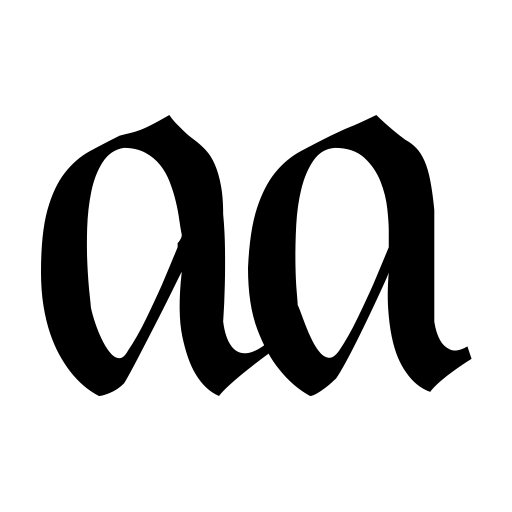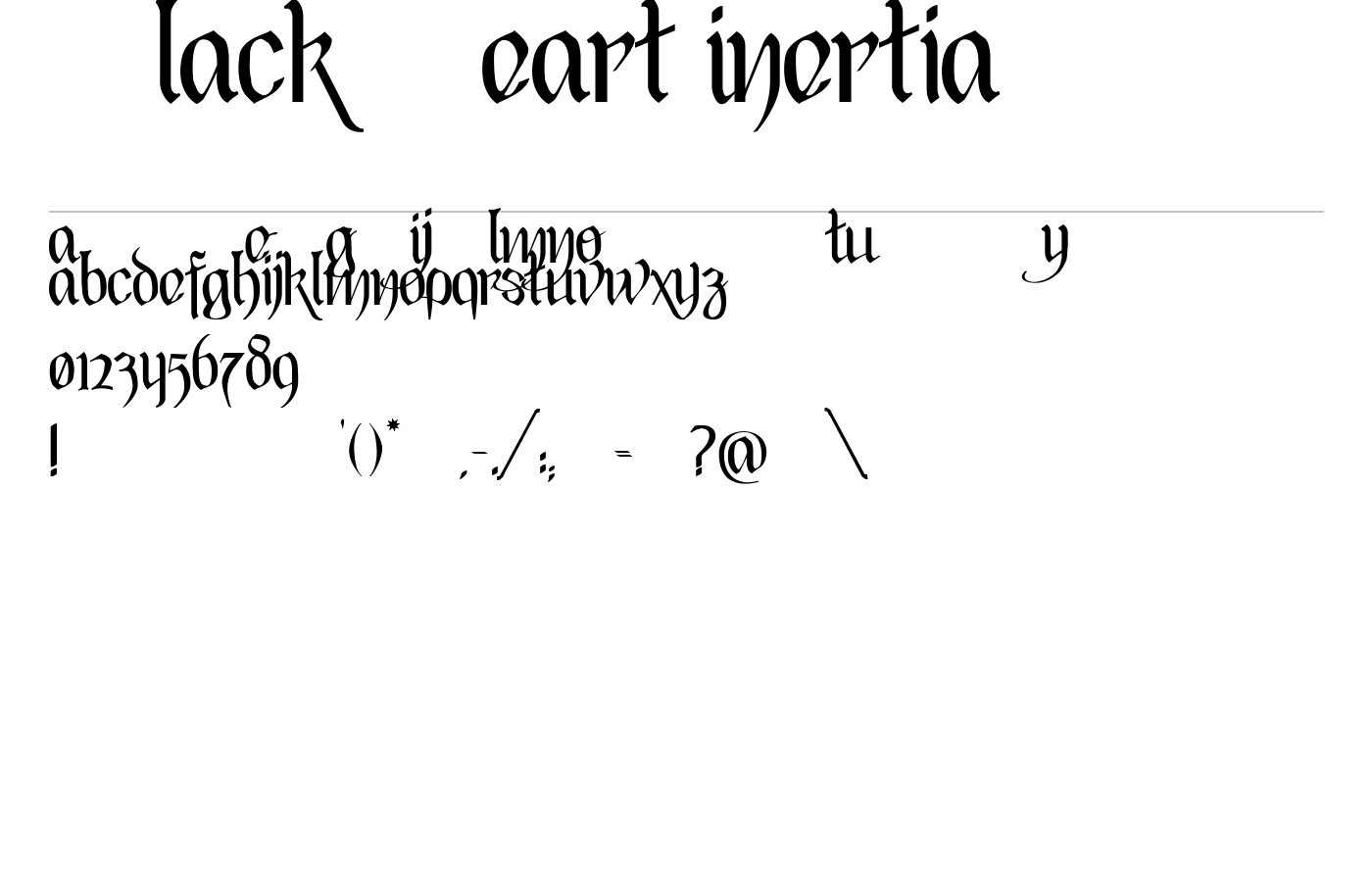
Black Heart Inertia is a distinctive blackletter-style serif font featuring tall, narrow letterforms with sharp, angular strokes and high contrast between thick and thin lines. Its dramatic, gothic appearance gives it a medieval and intense personality, making it ideal for edgy branding, headlines, and creative projects that require a dark, artistic flair. This font excels in display use where its unique, ornamental shapes can truly stand out and capture attention.
Black Heart Inertia Font
About Black Heart Inertia Font